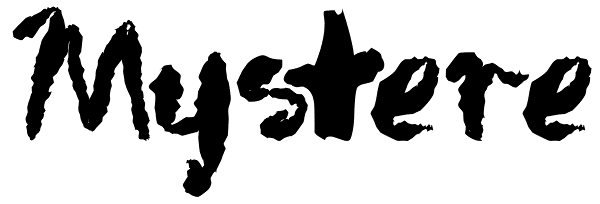
Mystere
Mystere is a new, hand-drawn font. This is currently a limited set designed for display usage. The font has a crude, yet stylish feel.
Mystere Font